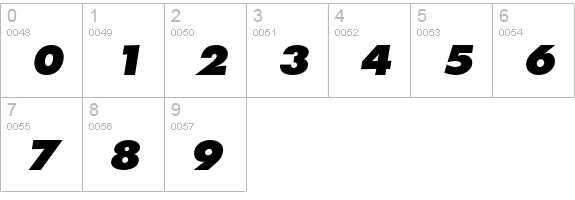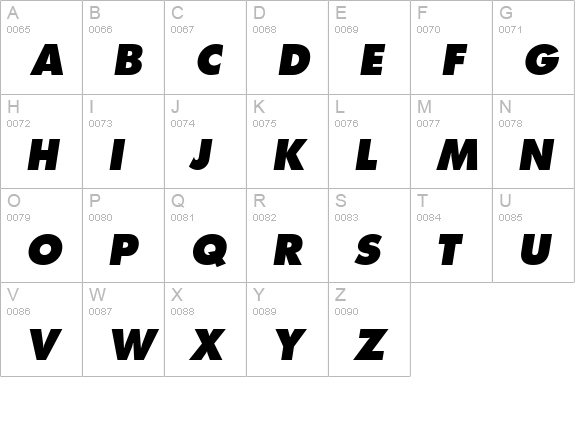
Kudos Black SSi Extra Bold Italic is a maximum-weight, dramatic, italic variant in the Kudos typeface family \xE2\x80\x94 well suited to maximum-impact headlines, posters, and packaging.
Kudos Black SSi Extra Bold Italic font is a stunning and impactful typeface that exudes power and modernity. Its bold strokes and sleek italics create a sense of sophistication and style, making it perfect for attention-grabbing headlines, branding, and design projects that require a strong visual presence. What sets Kudos Black SSi apart is not only its striking design but also its availability for free download at FontsMarket.com. This means that designers and creatives can easily access this premium font without any cost, making it a valuable addition to their font library. With Kudos Black SSi Extra Bold Italic font, you can effortlessly elevate your designs and make a bold statement. Whether you're working on posters, logos, packaging, or any other creative project, this font is sure to make a lasting impression. Download it for free today and unleash the power of Kudos Black SSi in your designs!